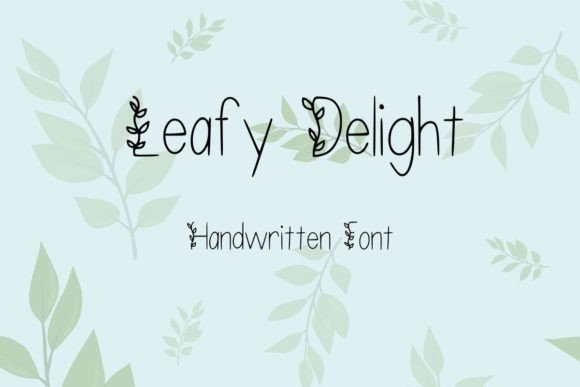
Unleash the Charm of Nature's Embrace with Leafy Delight Font - The Epitome of Artistic Elegance for Your Creative Endeavors
In a world saturated with monotonous and uninspired fonts, Leafy Delight emerges as a breath of fresh air, an enchanting font family that captures the essence of nature's allure. This decorative font, meticulously crafted by the visionary Kelly Light Graphics, is a symphony of delicate strokes and graceful curves, designed to elevate your creative projects to new heights of beauty and sophistication.
Like a gentle whisper of the wind rustling through verdant leaves, Leafy Delight dances across your digital canvas, bringing a sense of tranquility and harmony to your designs. Its organic flow and intricate details evoke the charm of a secret garden, inviting your imagination to embark on a journey of artistic exploration.
Perfect for wedding invitations, scrapbooking, journaling, and a myriad of other creative pursuits, Leafy Delight possesses an uncanny ability to transform the ordinary into the extraordinary. Its versatility knows no bounds, seamlessly adapting to a wide spectrum of styles and themes, from whimsical and playful to elegant and timeless.
With Leafy Delight as your creative companion, you'll discover a font that transcends mere aesthetics, becoming an extension of your artistic vision. Its enchanting presence will captivate your audience, leaving them spellbound by the sheer beauty and artistry of your designs.
So, immerse yourself in the captivating embrace of Leafy Delight, and let your creativity flourish like never before. Experience the joy of crafting designs that resonate with the soul, designs that leave an indelible mark on the hearts and minds of your audience.